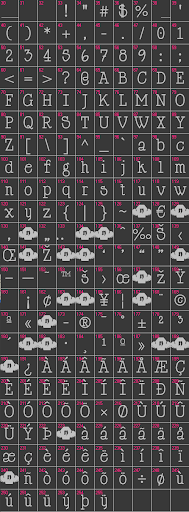
HappyPhantom, a TrueType font created by me, Lauren Thompson was originally released in July of 2009. Inspiration for the typeface came after creating the decorative hand-drawn slab serif , "LT Chickenhawk Font." Read more about the design process of these fonts in this post, "The Chickenhawk Chronicles: Preface."The font has been updated and expanded upon to encompass a full family. That is with italic, bold, and italic bold weights and styles. This came with the release of Version 2, on November 14, 2009.